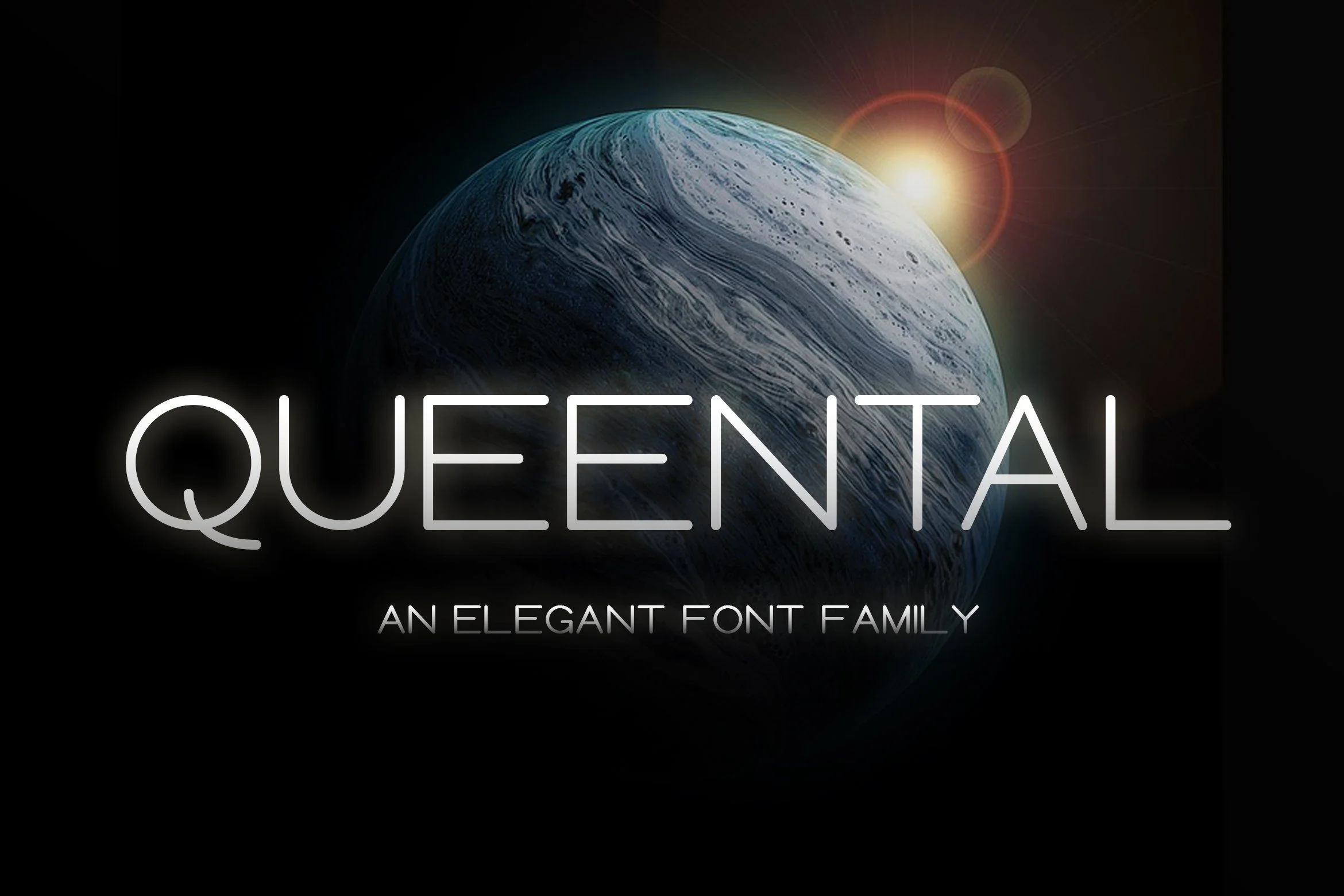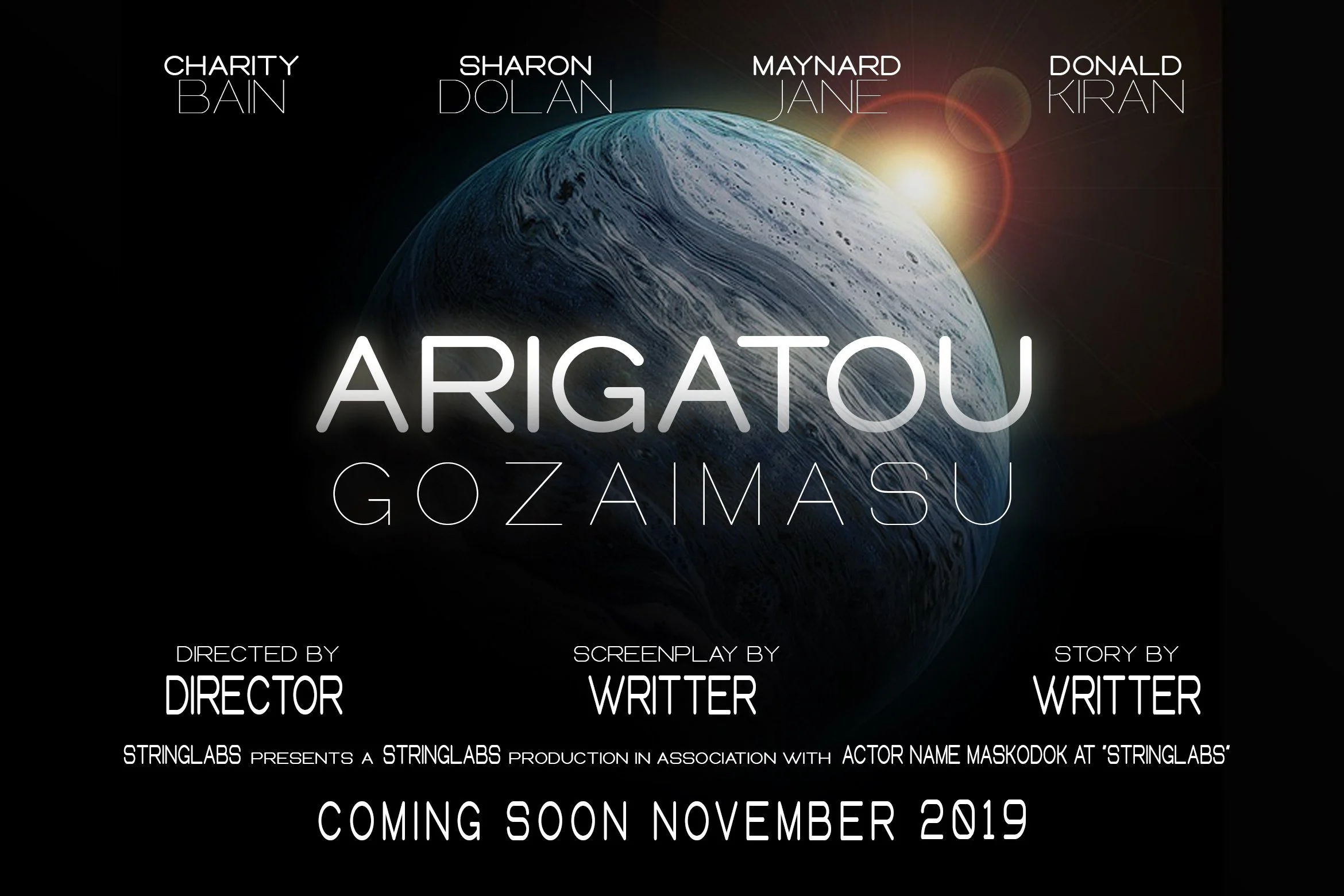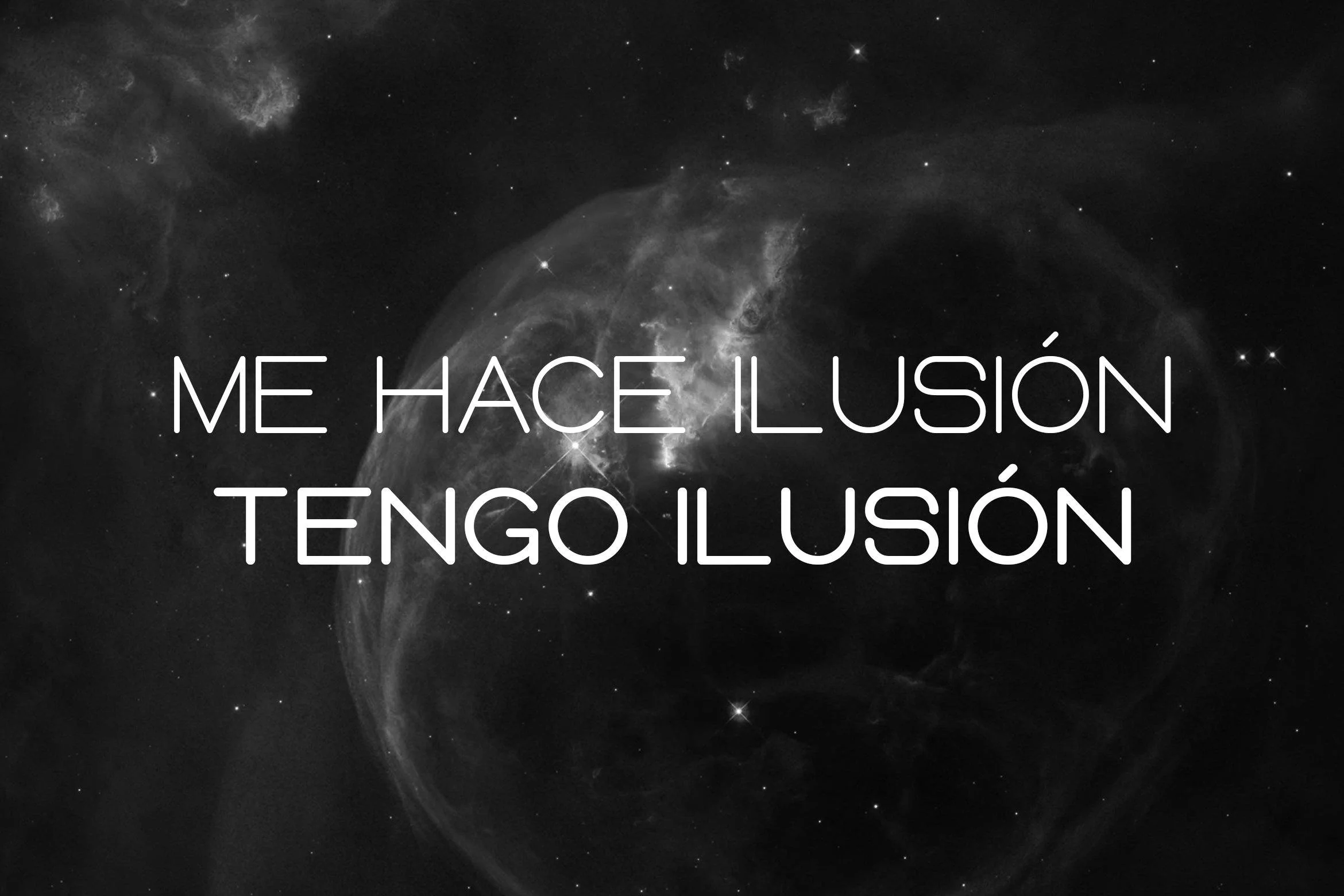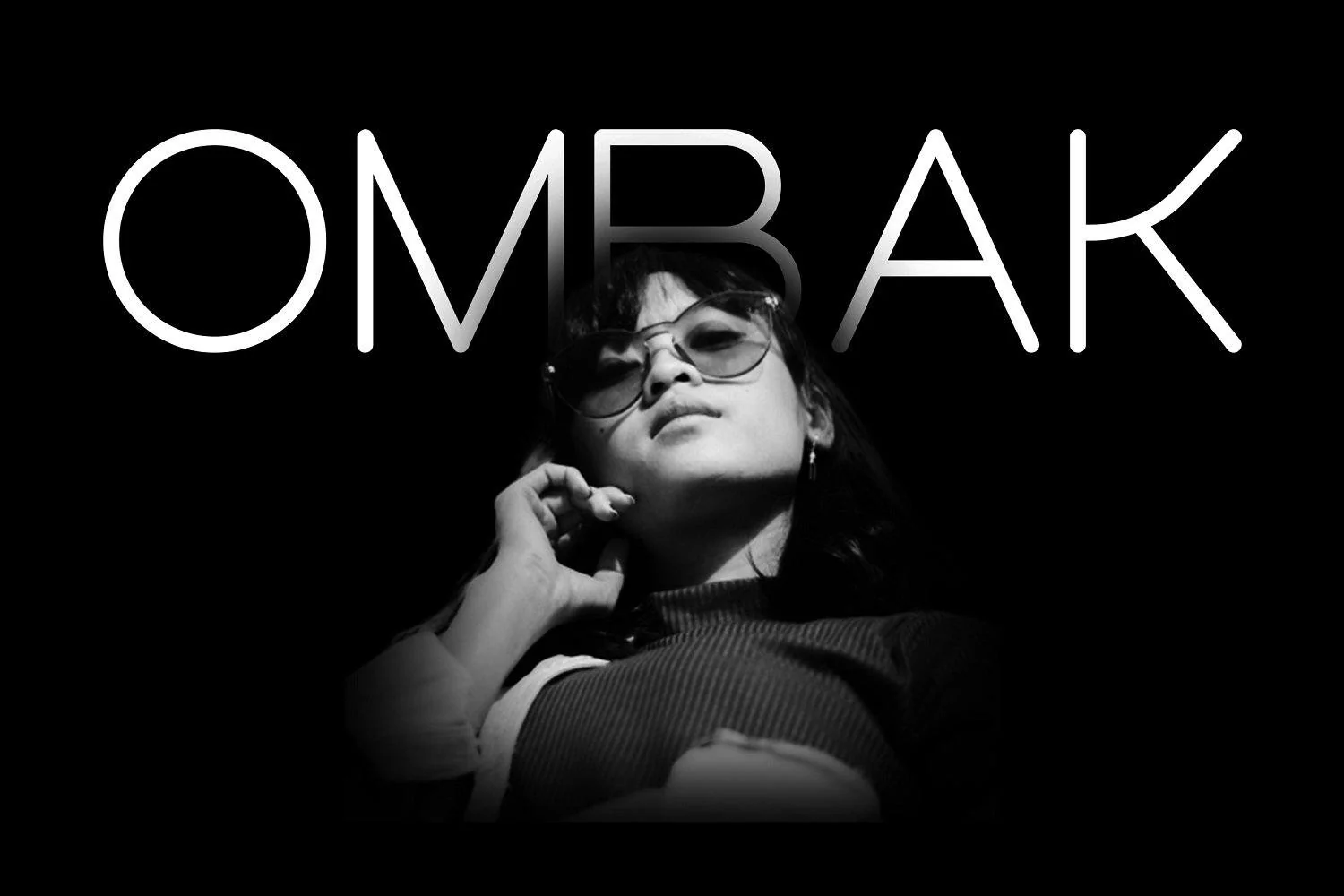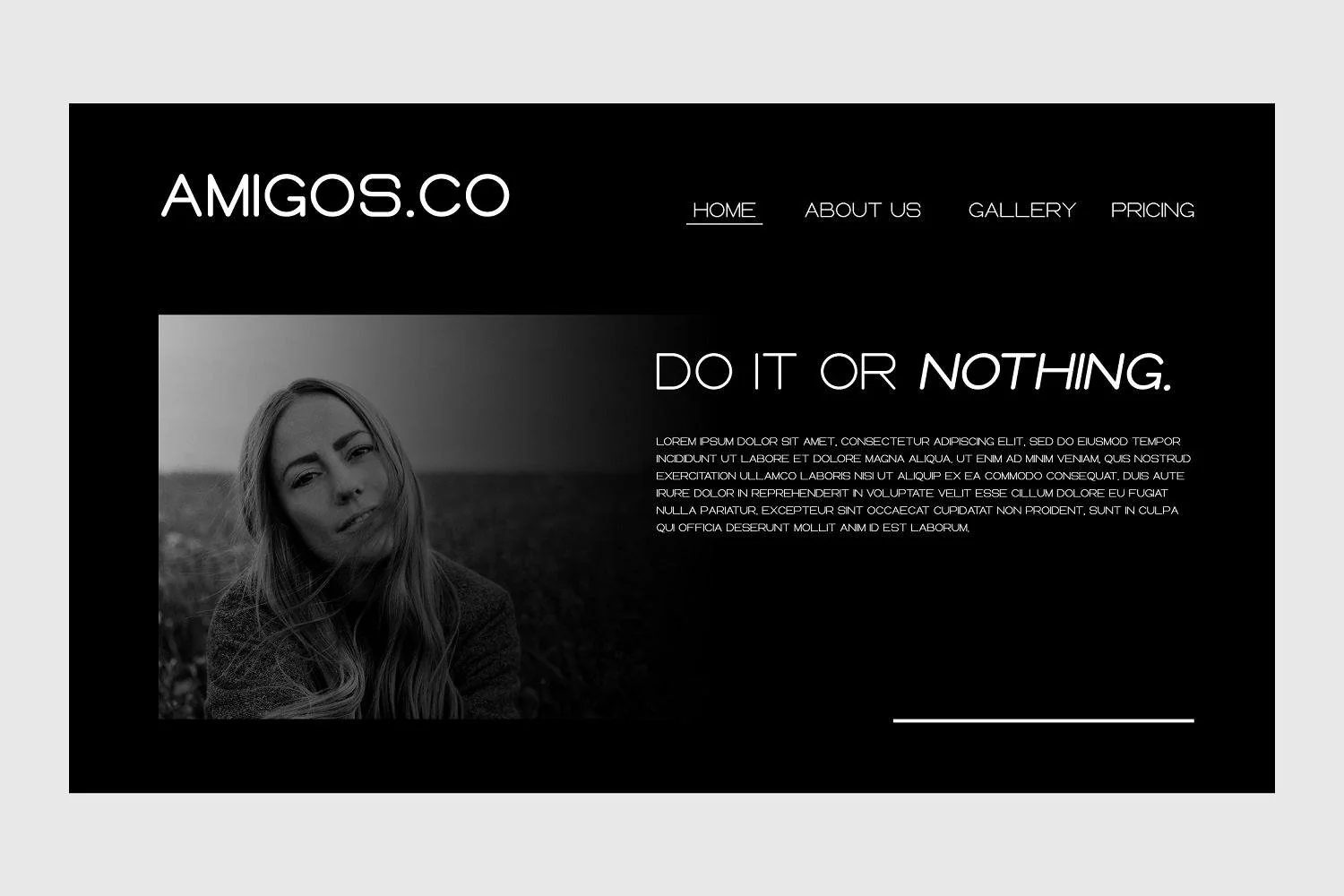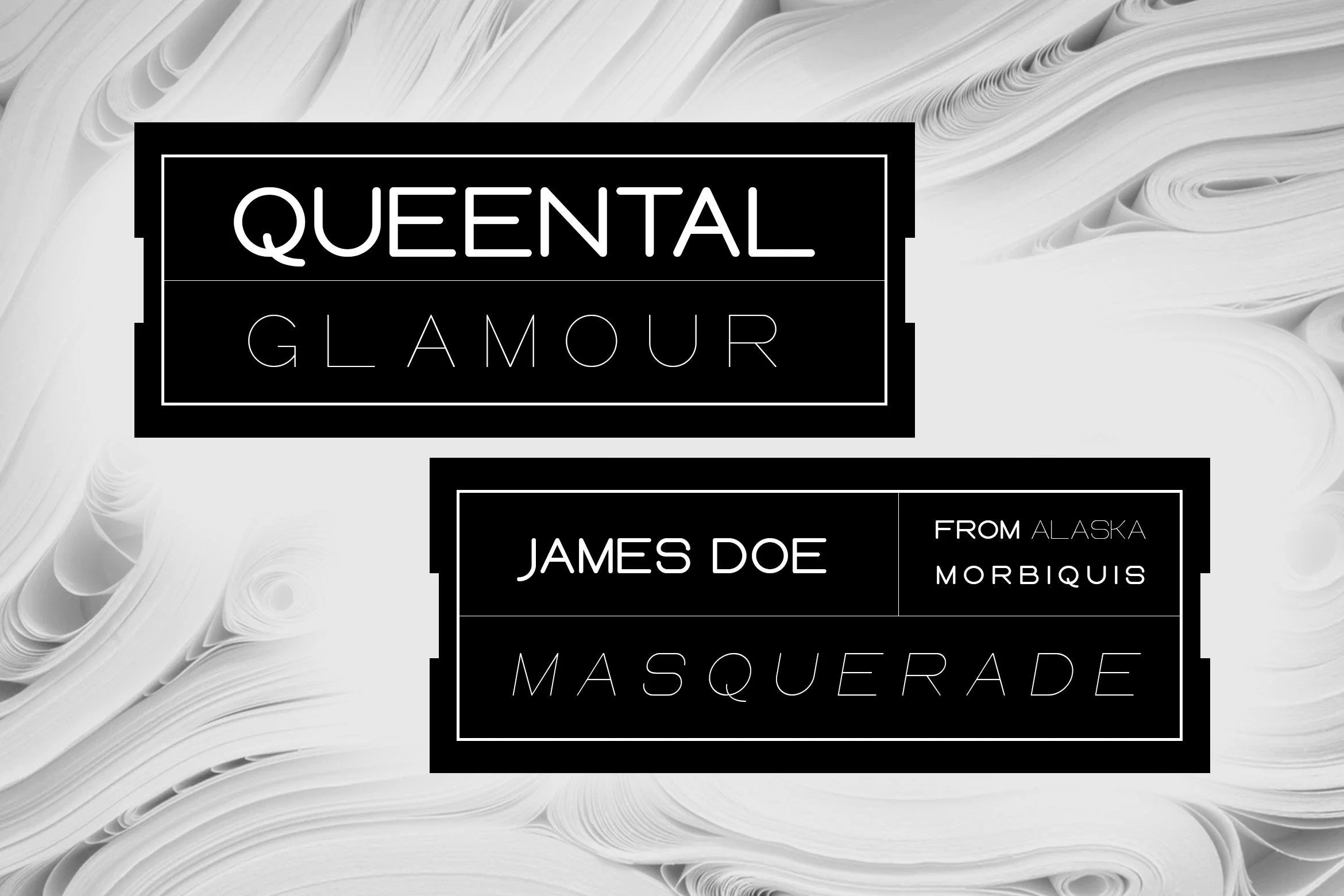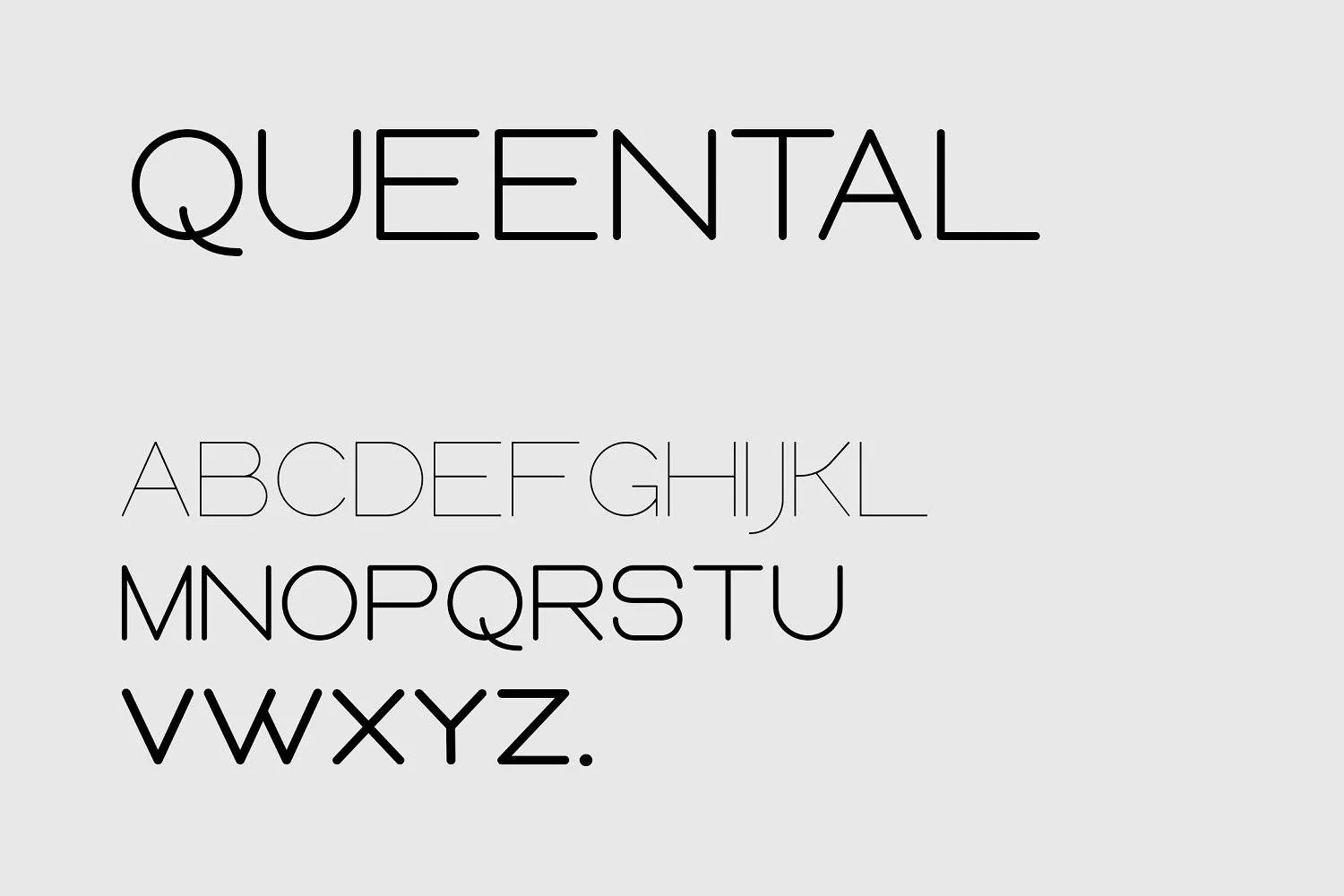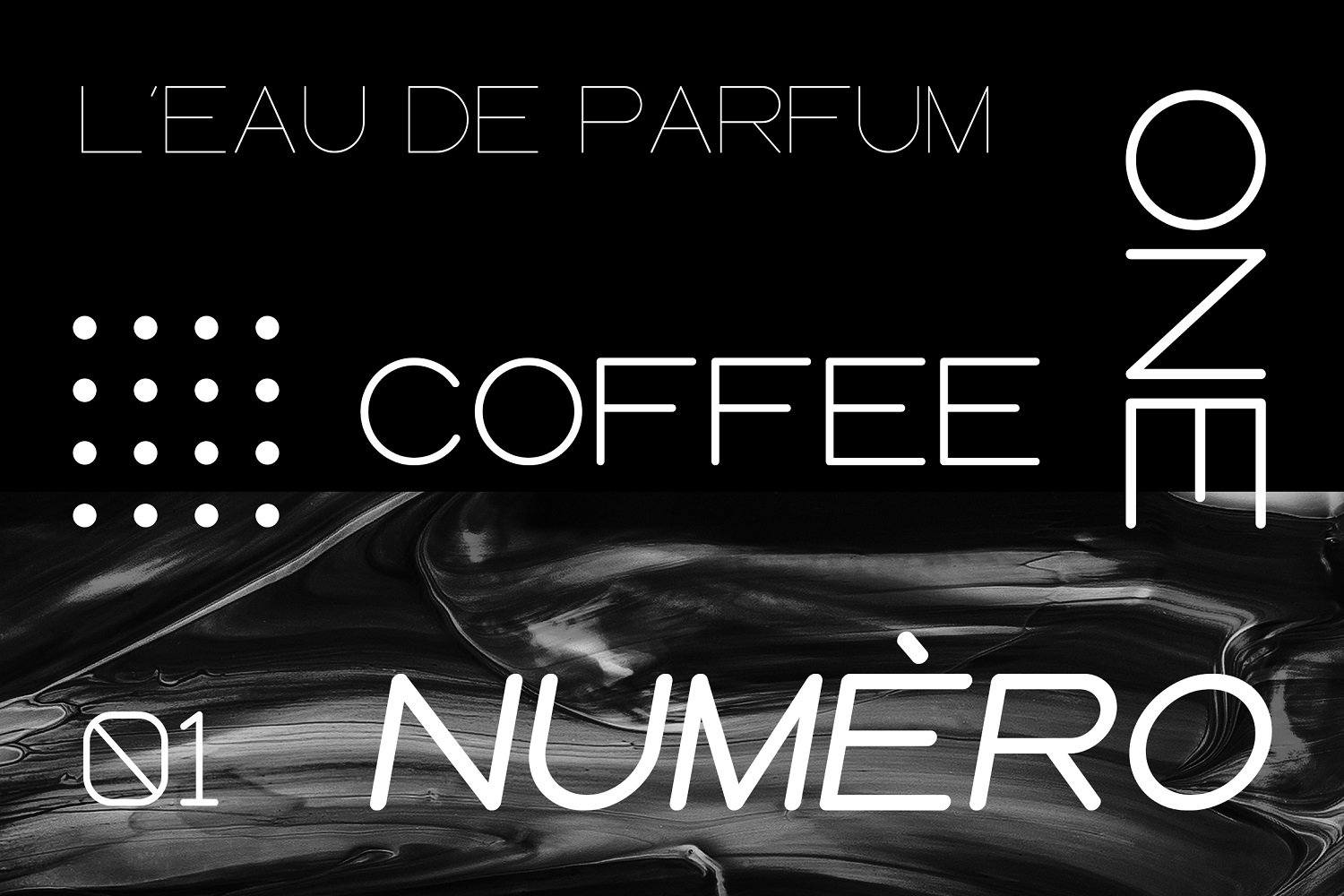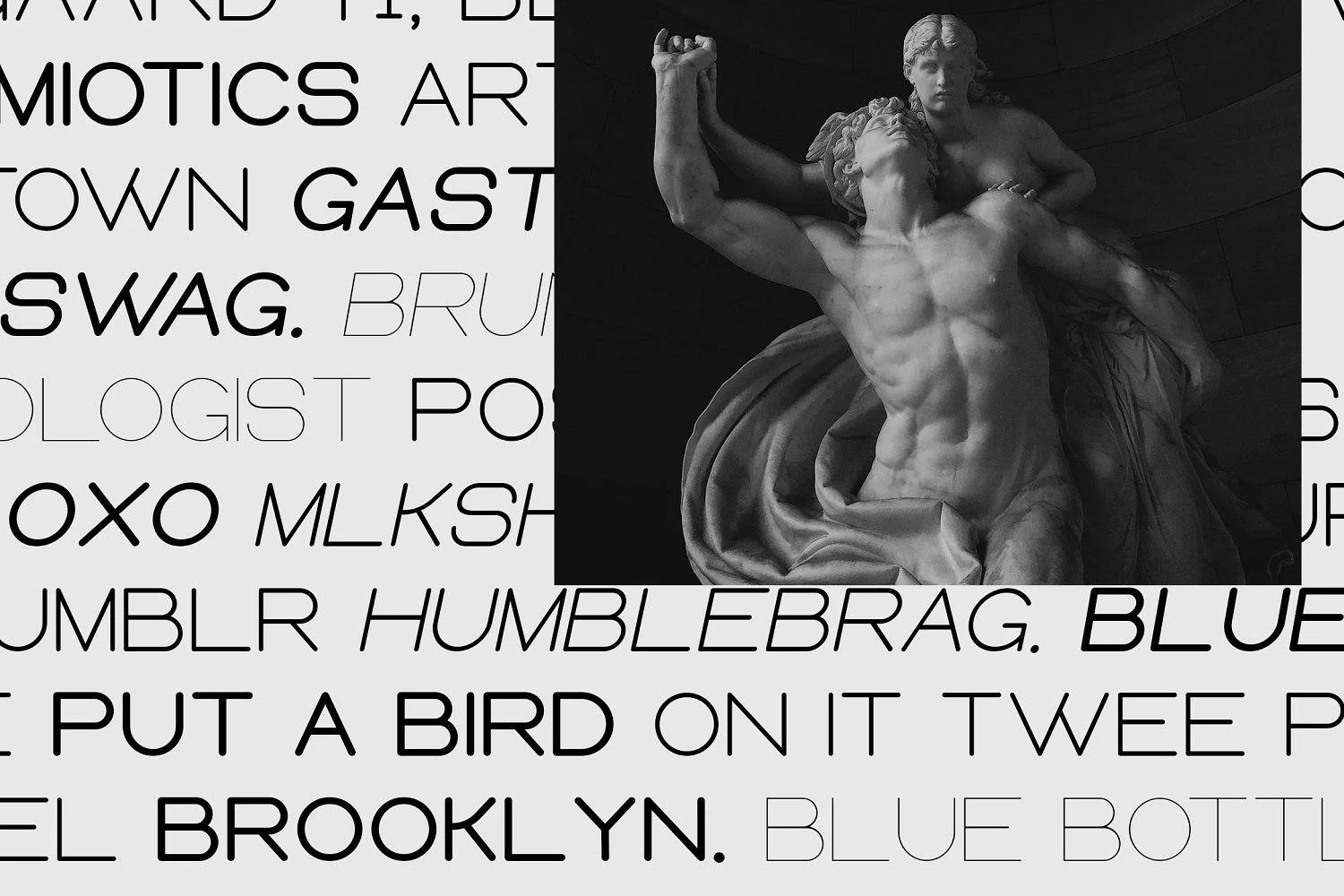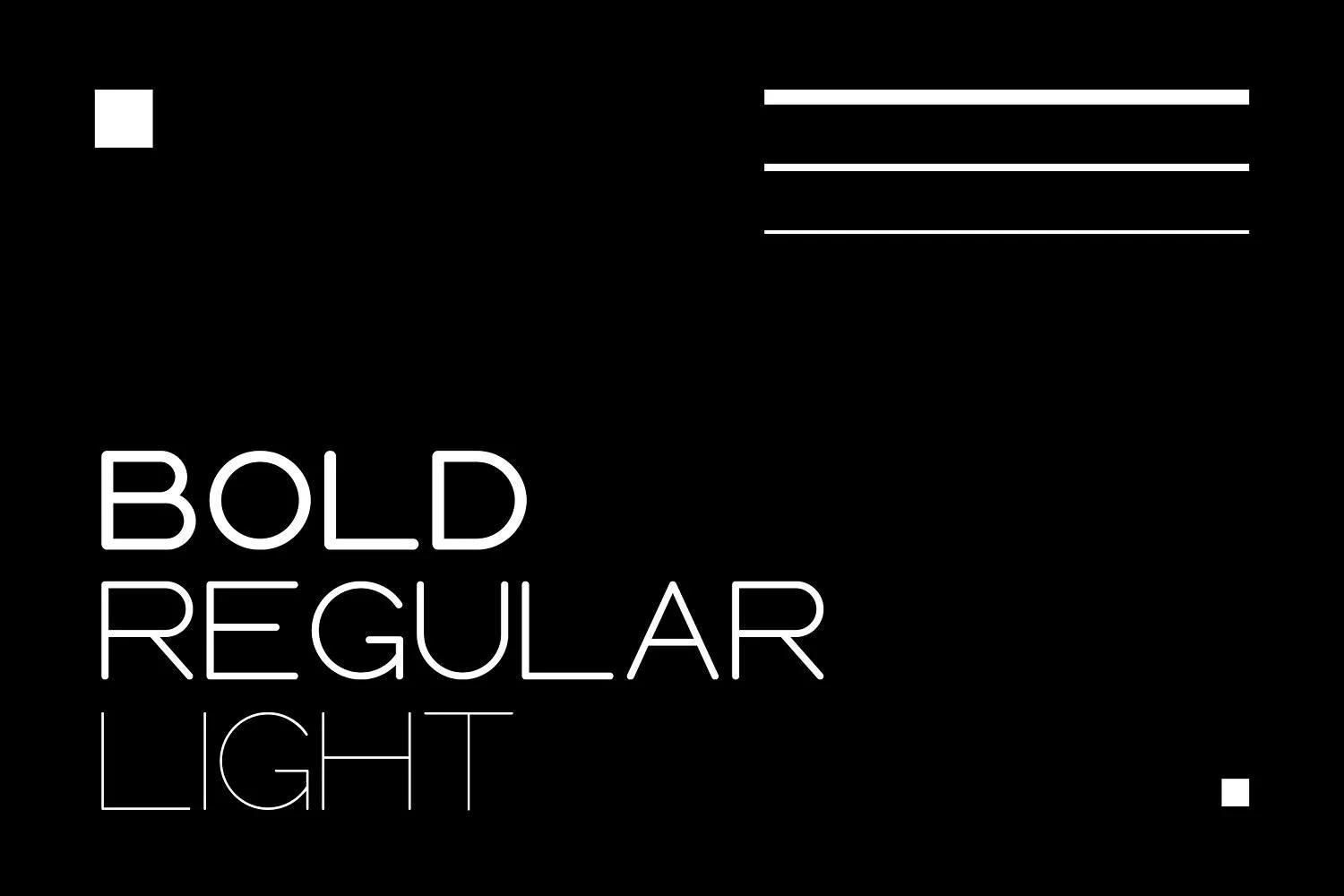
Queental - Elegant Sans Font Family
Introducing Queental - Elegant Sans Font Family
Queental is an elegant sans serif font family. This font is perfect for anyone who like strong style. Also, this font has Futuristic, Modern, Elegant, Creative, Professional and Unique Concept.